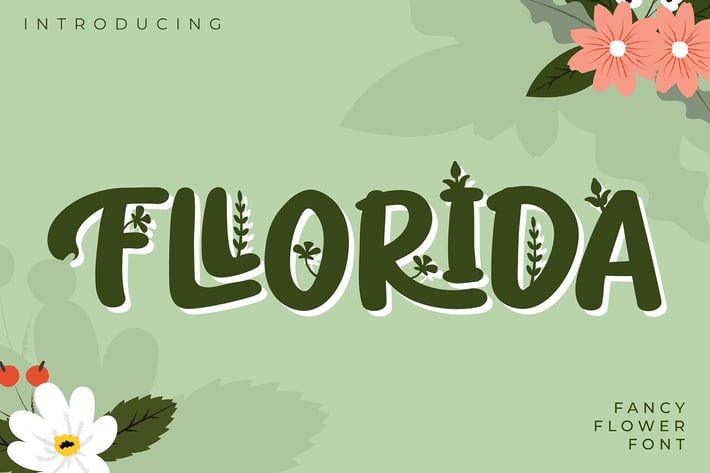
Fllorida | Fancy Flower Font
Fllorida | Fancy Flower Font with a calligraphy style, So beautiful on invitation like greeting cards, branding materials, business cards, quotes, posters, and more!